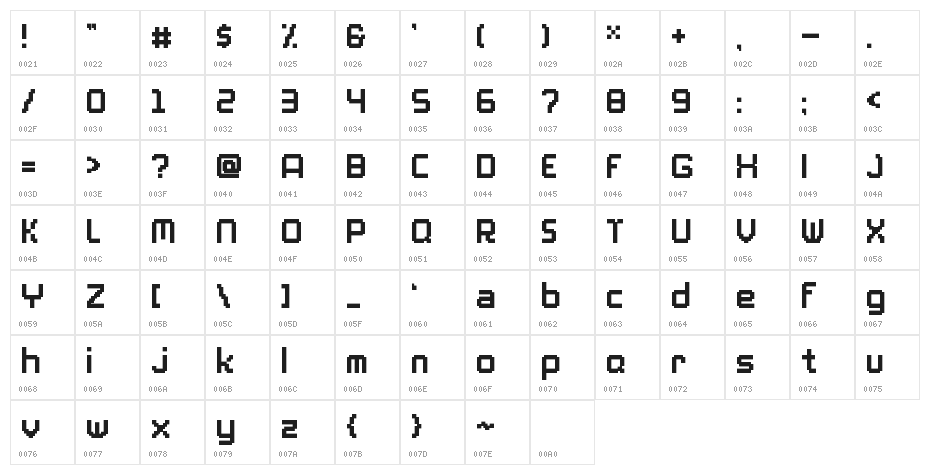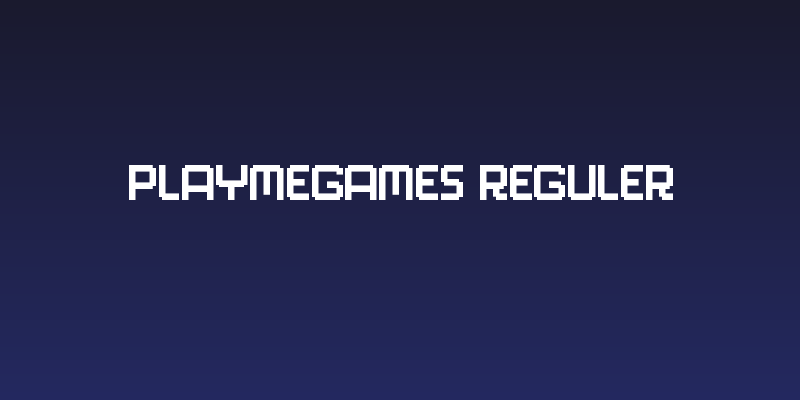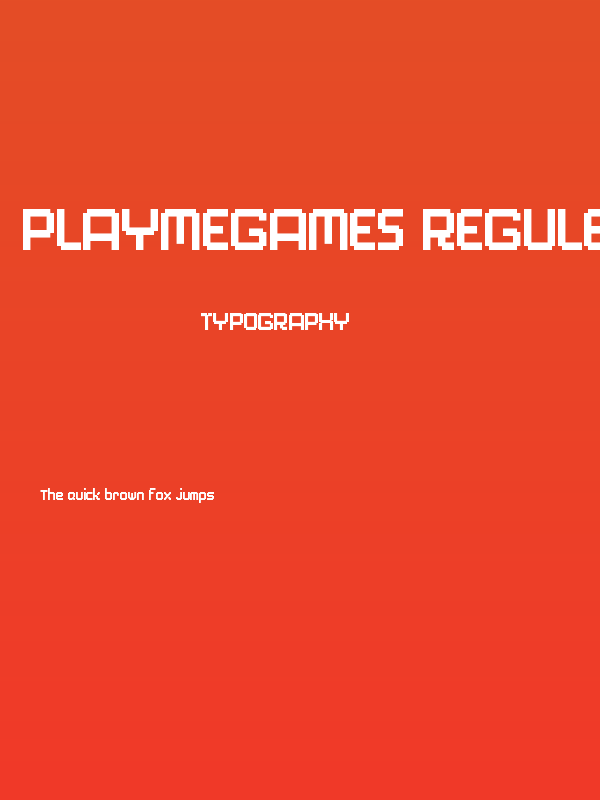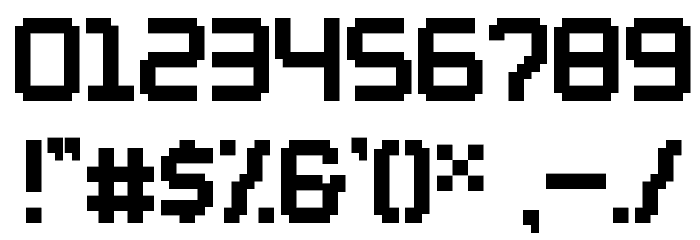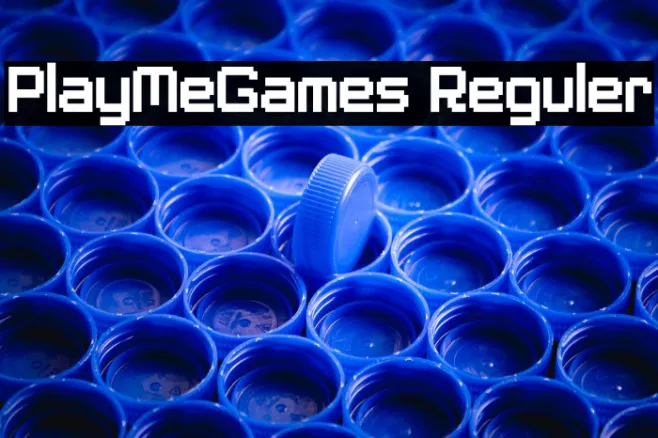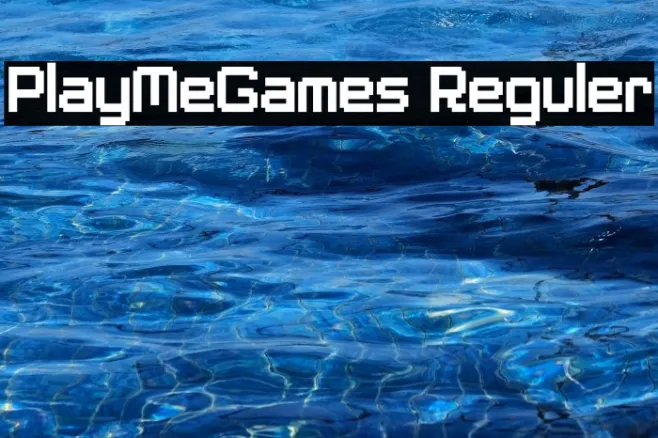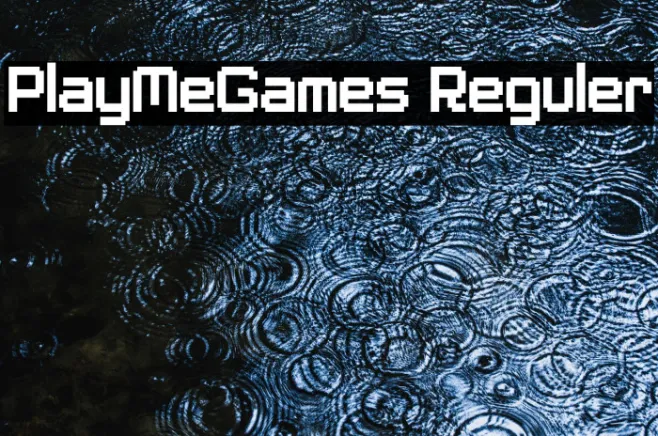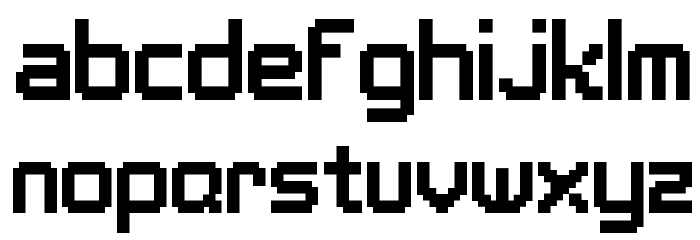
PlayMeGames Reguler Font
PlayMeGames Reguler Description
This font features a bold, pixelated design reminiscent of classic video game typography. Each character is constructed with a blocky, grid-like structure, giving it a distinctly retro and digital appearance. The uppercase and lowercase letters maintain a consistent height and width, contributing to a uniform look across the text. Numbers and special characters are crafted with the same pixelated style, ensuring cohesive visual harmony. The font's geometric precision and nostalgic aesthetic make it ideal for projects that aim to evoke a sense of vintage gaming or digital nostalgia.